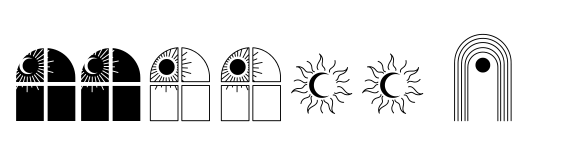
La Gagliane
von Hishand Studio
Die Schriftfamilie La Gagliane wurde von Putu Dody Permana entworfen und von Hishand Studio veröffentlicht. La Gagliane enthält 3 Stile und Familienpaketoptionen.
La Gagliane is beautiful sans serif font that look aesthetic and elegant. Perfect for Logo brand, advertisement, product packaging, social media post, clothing brand, magazine headers and many more